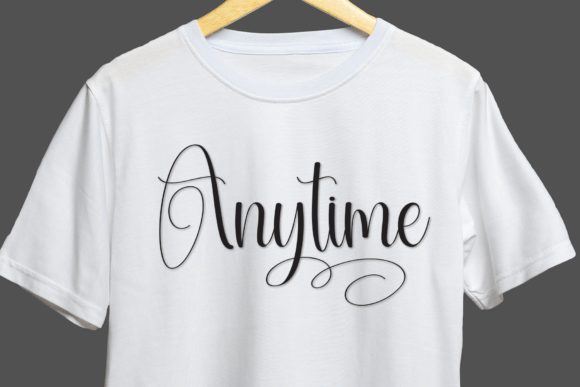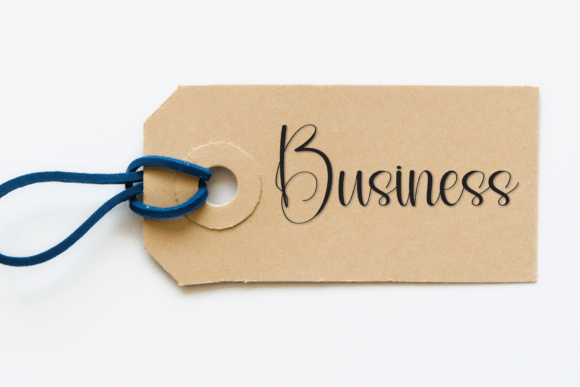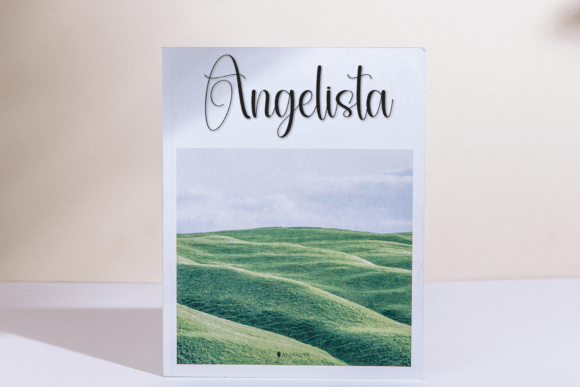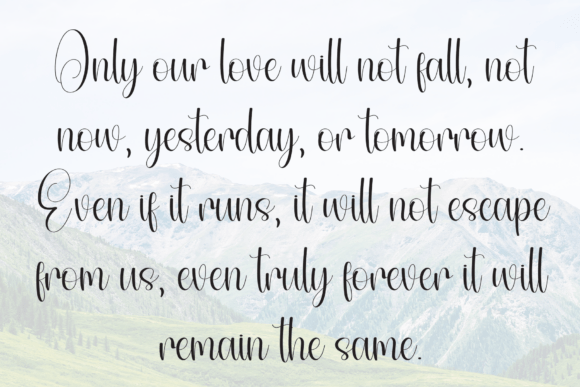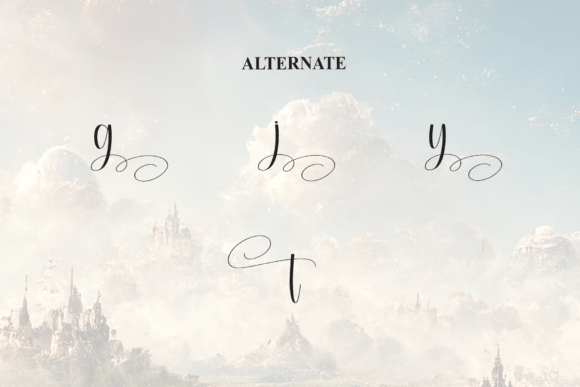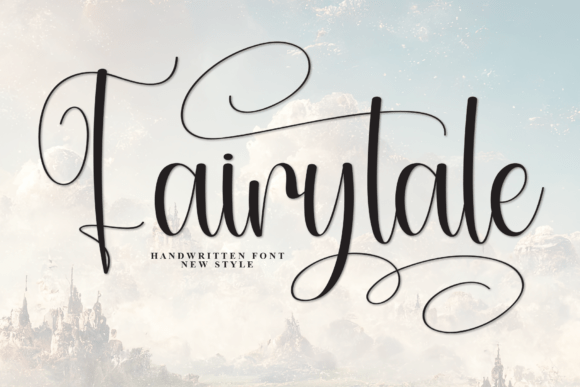
Introducing Fairytale Font: Whimsy and Warmth for Your Designs
Are you looking for a font that can add a touch of magic to your designs? Look no further than Fairytale Font, a charmingly whimsical script font that’s perfect for creating intimate and heartwarming designs. In this article, we’ll explore the features and benefits of Fairytale Font, and how it can elevate your design projects to the next level.
A Font that Speaks to the Heart
Fairytale Font is a script font that’s designed to evoke a sense of warmth and friendliness. Its effortlessly delightful strokes are perfect for crafting designs that require a personal touch, such as wedding invitations, greeting cards, and other special occasion designs. With Fairytale Font, you can create designs that feel like a warm hug, making it the perfect choice for designers and crafters who want to create emotional connections with their audience.
A Perfect Blend of Sweetness and Fun
One of the standout features of Fairytale Font is its captivating blend of sweetness and fun. Each stroke of this font is infused with a sense of playfulness, making it perfect for designs that require a touch of whimsy. Whether you’re creating a design for a children’s party, a baby shower, or a wedding, Fairytale Font is sure to bring a smile to your audience’s faces.
Fairytale Font is PUA (Private Use Area) encoded, which means that you can easily access all of the glyphs and swashes with ease. This makes it simple to customize your designs and add your own personal touches. With PUA encoding, you can access a wide range of characters, including ligatures, alternates, and swashes, giving you complete creative control over your designs.
Fairytale Font is a versatile font that can be used for a wide range of design projects. Here are just a few ideas to get you started:
- Children’s party invitations and decorations
- Baby shower invitations and decorations
Why Choose Fairytale Font?
So why choose Fairytale Font over other script fonts? Here are just a few reasons:
- Unique and one-of-a-kind design
- Effortlessly delightful and whimsical
- Perfect for designs that require a personal touch
Tips for Using Fairytale Font
Here are a few tips for using Fairytale Font in your designs:
- Use it for headings and titles to add a touch of whimsy
- Pair it with a simple sans-serif font for body text
- Use the swashes and glyphs to add a personal touch to your designs
Fairytale Font is a charmingly whimsical script font that’s perfect for designers and crafters who want to add a touch of magic to their designs. With its effortlessly delightful strokes, PUA encoding, and endless design possibilities, Fairytale Font is the perfect choice for any design project that requires a personal touch. So why wait? Download Fairytale Font today and start creating designs that speak to the heart!